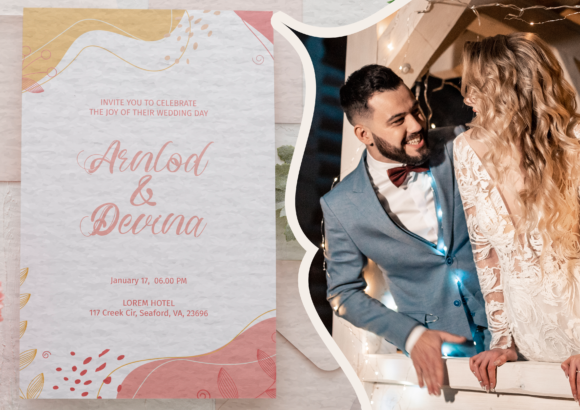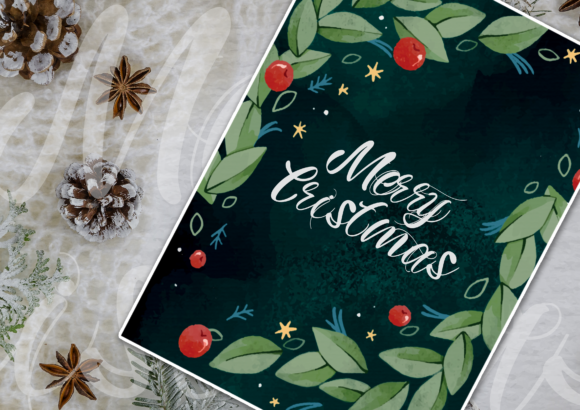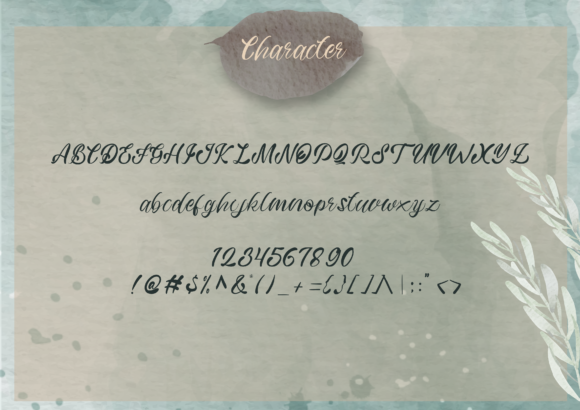
Introduction to Jamella Font
Jamella is an elegant handwritten font, that features a very delicate and classy look.
Not too thin and not too thick, balanced and varied, this font was designed to enhance the beauty of your projects .
Why Choose Jamella Font?
Jamella Font offers exceptional quality and versatility, making it a valuable addition to your design toolkit. Whether you’re creating for personal projects or commercial use, Jamella Font delivers professional results.